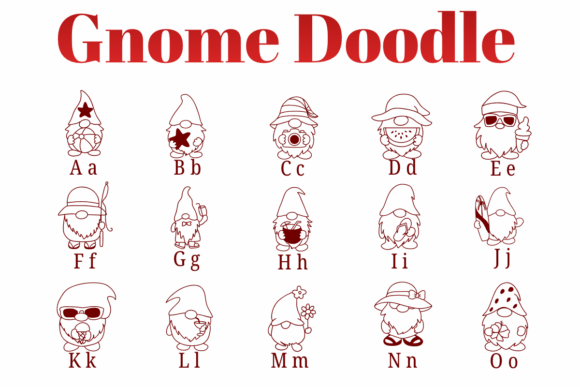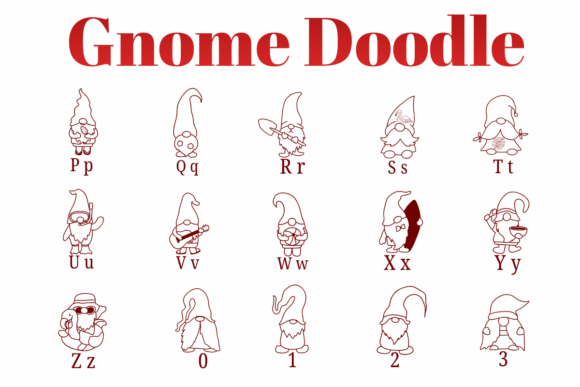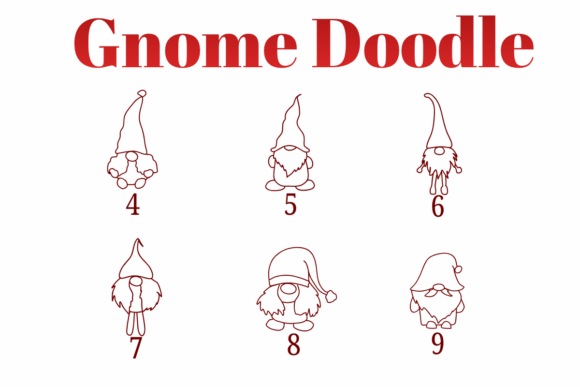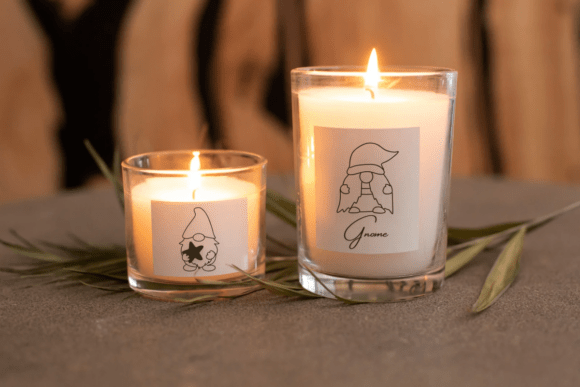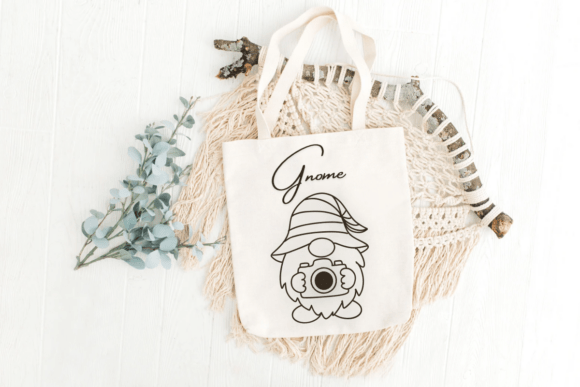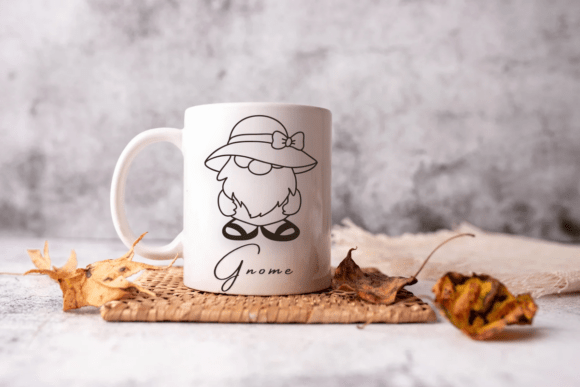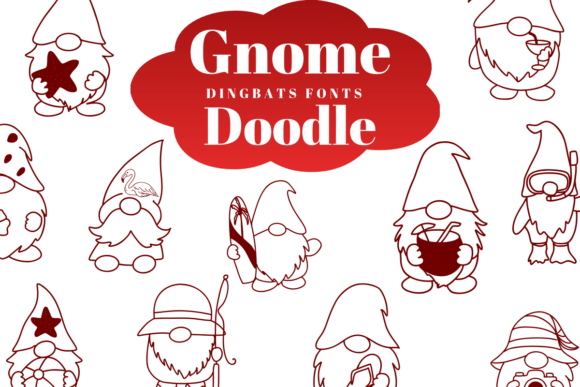
Gnome Doodle Font: Unleash Your Creativity with this Whimsical Sketch Font
Are you a designer, crafter, or DIY enthusiast looking for a unique and creative way to add a personal touch to your projects? Look no further than the Gnome Doodle Font, a delightful dingbats font with a sketch style that’s perfect for a wide range of creative endeavors. In this article, we’ll explore the features and benefits of Gnome Doodle, and show you how this versatile font can enhance your wedding invitations, DIY projects, crafts, decorations, logos, and more.
What is Gnome Doodle Font?
Gnome Doodle is a dingbats font that features a charming sketch style, complete with hand-drawn illustrations and a playful, whimsical feel. This font is perfect for designers and crafters who want to add a touch of personality and whimsy to their projects. With Gnome Doodle, you can create unique and eye-catching designs that are sure to stand out from the crowd.
Features of Gnome Doodle Font
So, what makes Gnome Doodle so special? Here are just a few of the features that make this font a must-have for designers and crafters:
• Sketch style: Gnome Doodle features a charming sketch style that’s perfect for creating hand-drawn illustrations and designs.
• Dingbats font: As a dingbats font, Gnome Doodle features a wide range of illustrations and symbols that can be used to add visual interest to your projects.
• Whimsical feel: Gnome Doodle has a playful, whimsical feel that’s perfect for creating designs that are fun, creative, and eye-catching.
• Versatile: Gnome Doodle can be used for a wide range of projects, from wedding invitations and DIY crafts to logos and decorations.
Using Gnome Doodle Font in Your Projects
So, how can you use Gnome Doodle in your projects? Here are just a few ideas to get you started:
• Wedding invitations: Add a touch of whimsy and romance to your wedding invitations with Gnome Doodle’s charming illustrations and symbols.
• DIY crafts: Use Gnome Doodle to create unique and eye-catching designs for your DIY crafts, from paper crafts to home decor.
• Logos: Create a memorable and eye-catching logo for your business or brand with Gnome Doodle’s playful illustrations.
• Decorations: Use Gnome Doodle to create custom decorations for parties, events, and special occasions.
Tips for Using Gnome Doodle Font
Here are a few tips for getting the most out of Gnome Doodle:
• Experiment with different colors: Gnome Doodle looks great in a wide range of colors, so don’t be afraid to experiment and find the perfect hue for your project.
• Mix and match illustrations: Gnome Doodle features a wide range of illustrations and symbols, so feel free to mix and match to create a unique design.
• Use with other fonts: Gnome Doodle pairs well with a wide range of fonts, so don’t be afraid to use it in combination with other fonts to create a unique look.
In conclusion, Gnome Doodle is a versatile and creative font that’s perfect for designers, crafters, and DIY enthusiasts. With its charming sketch style and whimsical feel, Gnome Doodle is sure to add a touch of personality and whimsy to your projects. Whether you’re creating wedding invitations, DIY crafts, logos, or decorations, Gnome Doodle is a great choice. So why wait? Download Gnome Doodle today and start unleashing your creativity!